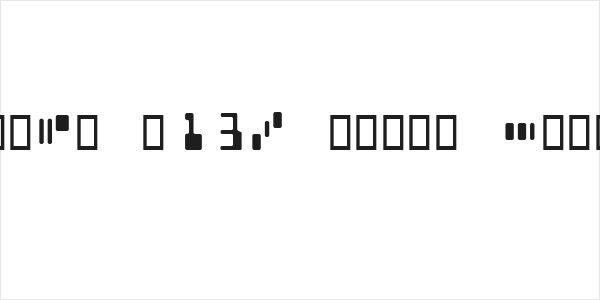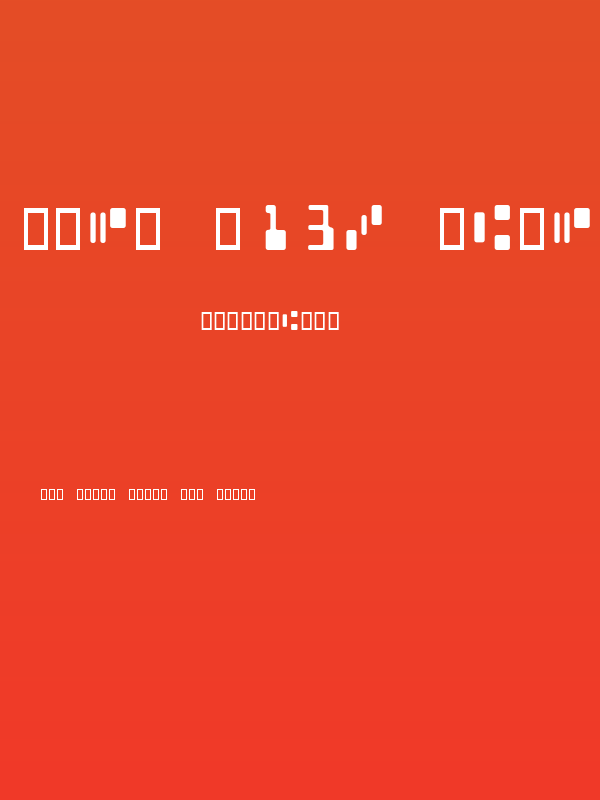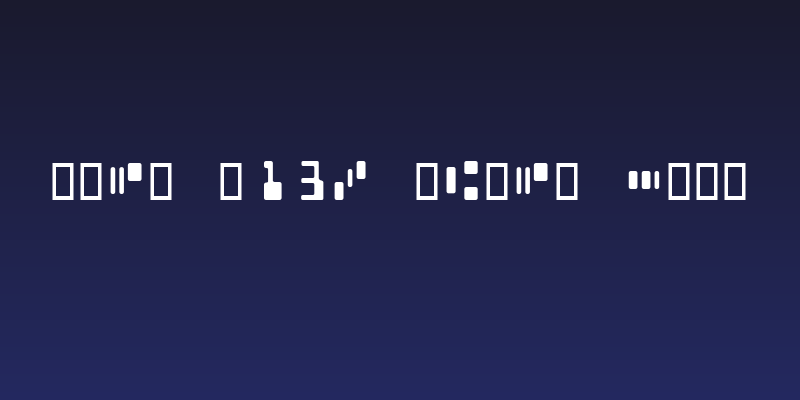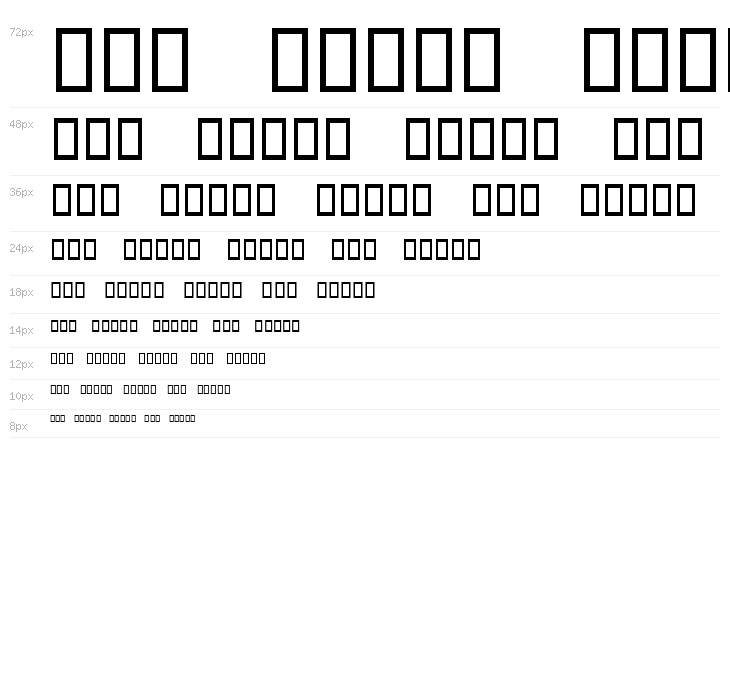
MICR E13B Match Demo Font
| Stile generale | Functional |
| Caso d'uso | Financial documents, machine-readable text |
| Progetti proposti | Ideal for financial documents, checks, and any project requiring machine-readable numeric data. |